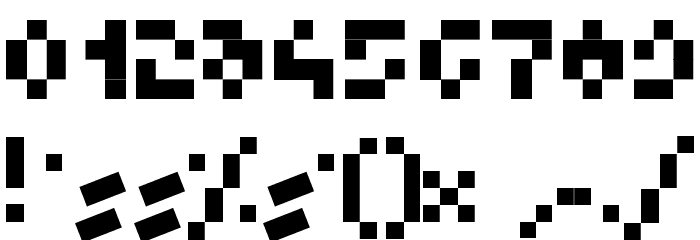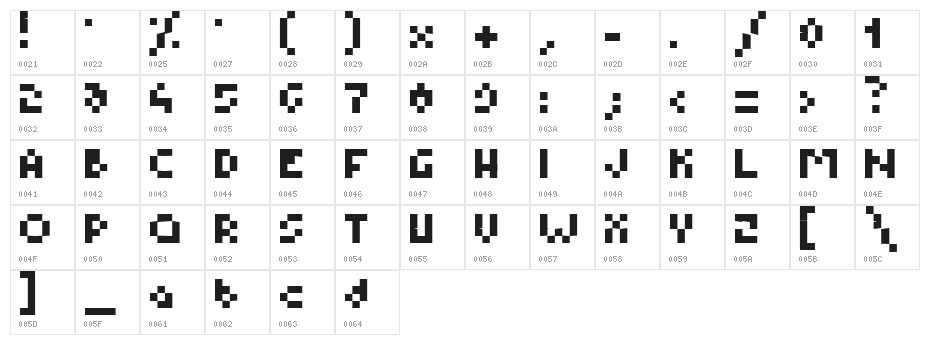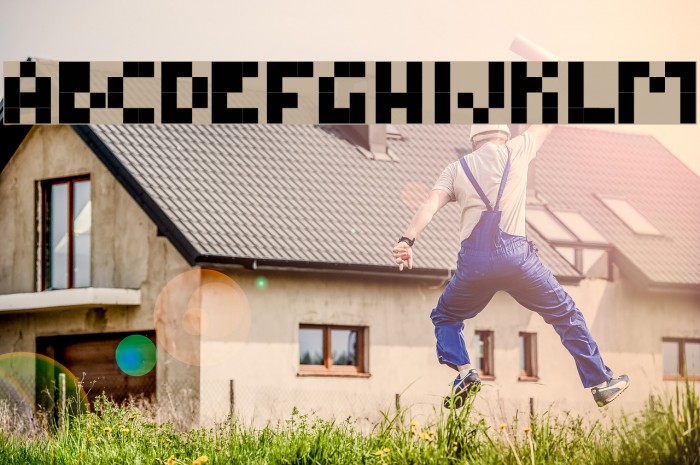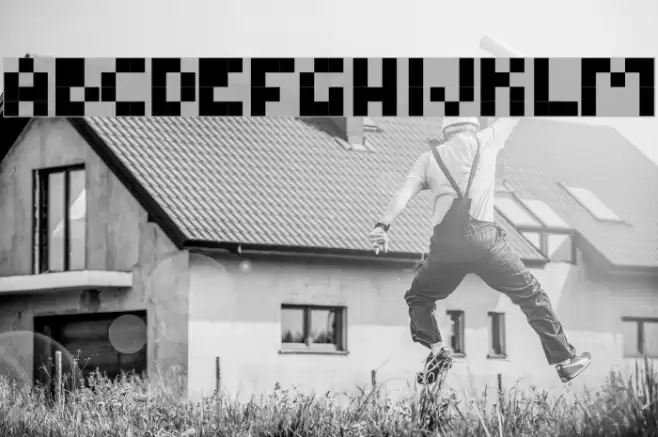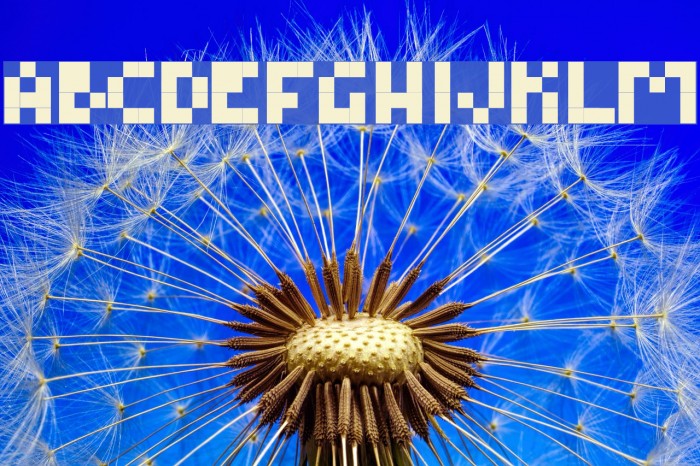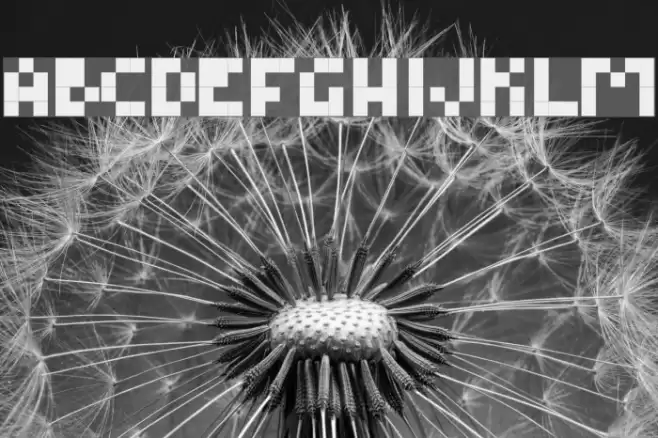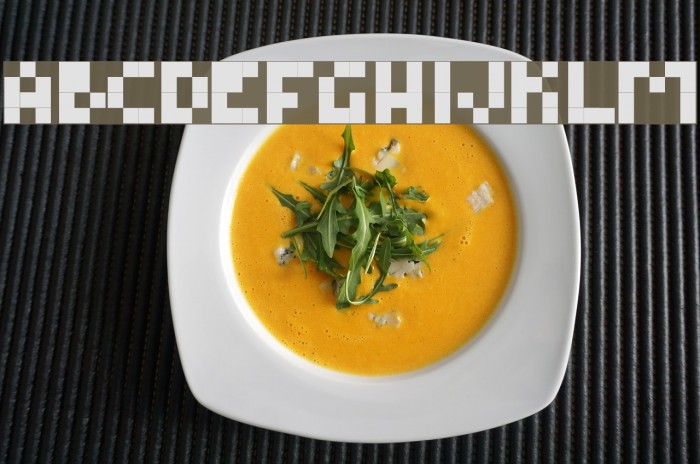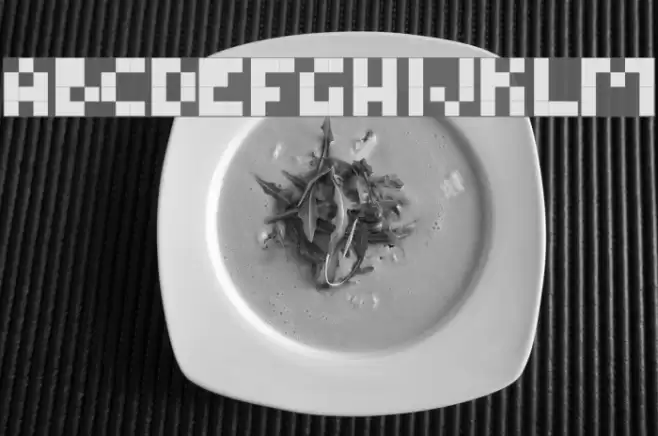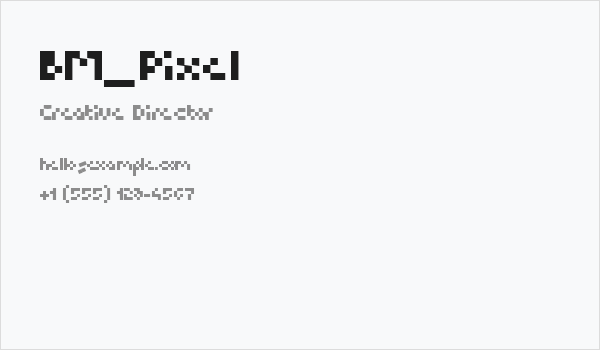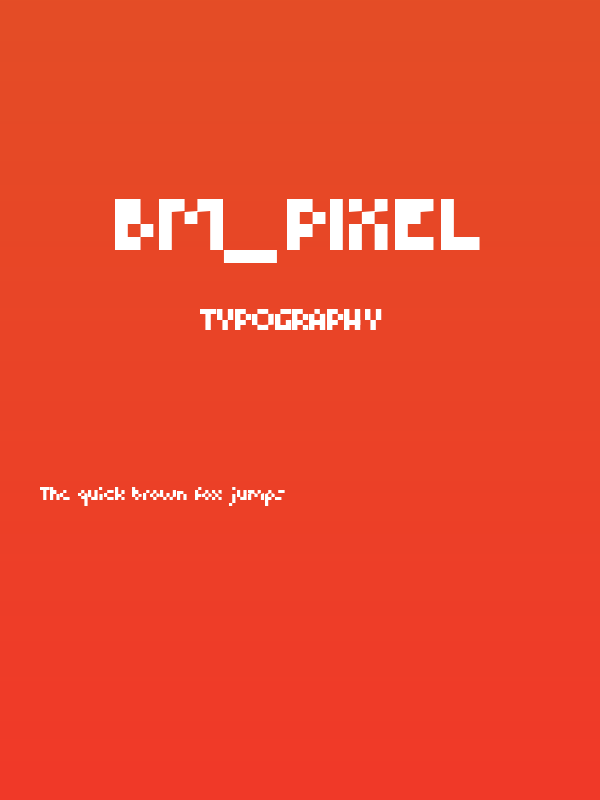
BM_Pixel Font
BM_Pixel Description
This font features a distinct pixelated style reminiscent of early digital displays and retro video games. Each character is constructed using a grid-like pattern, giving it a blocky and geometric appearance. The uppercase and lowercase letters maintain a consistent height, contributing to a uniform and cohesive look. The numerals and special characters follow the same pixelated design, ensuring visual harmony across all elements. This font's nostalgic aesthetic makes it ideal for projects that aim to evoke a sense of vintage digital technology or playful, game-inspired themes.
| Use Case | Logos, Headlines, Digital Art |
| Proposed Projects | Ideal for video game graphics, retro-themed posters, digital art projects, and any design that seeks to capture a nostalgic digital aesthetic. |